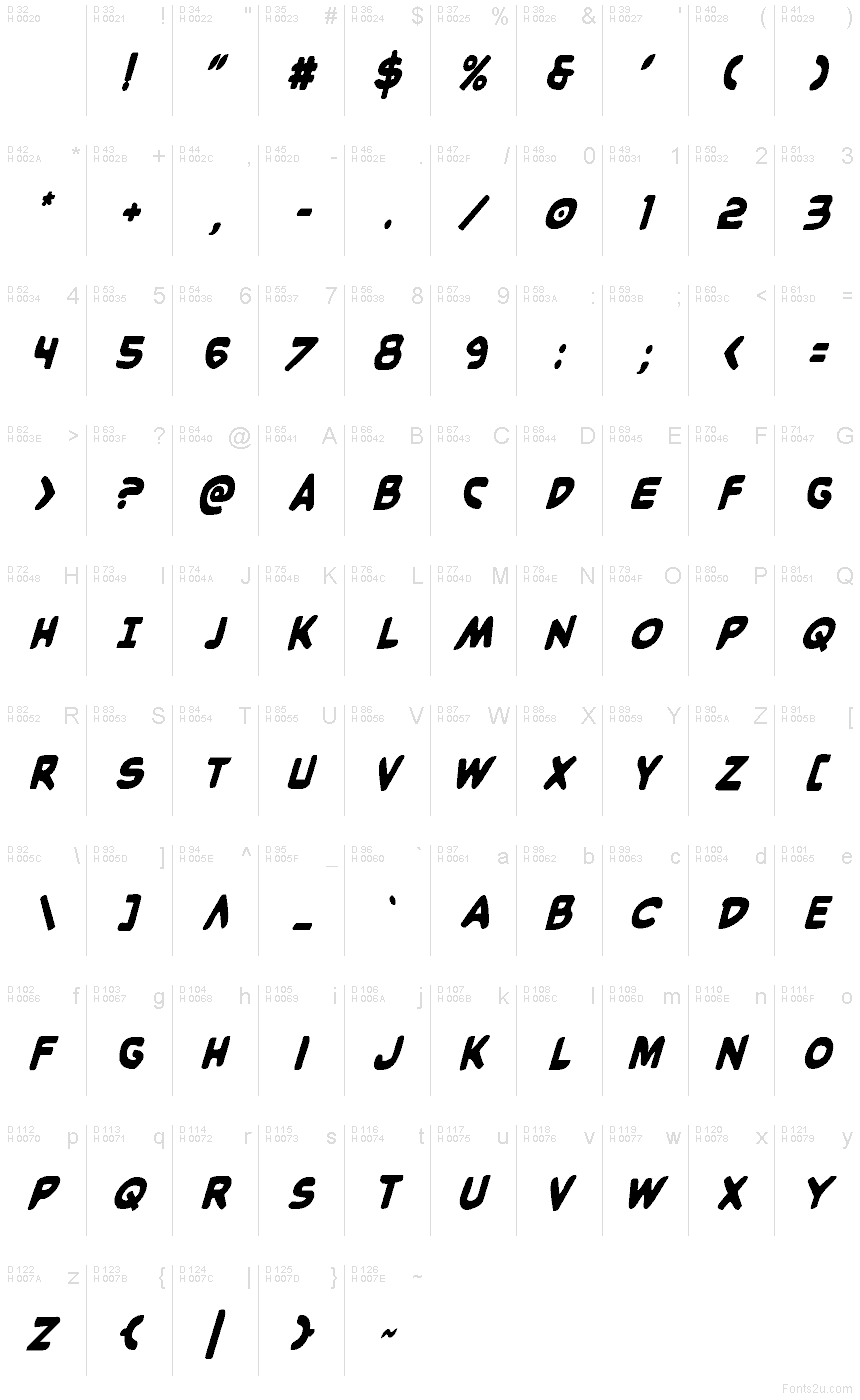
Caped Crusader Condensed Ital
Caped Crusader Condensed Italic font is a free comic display font created and designed by Iconian Fonts. Bold, futuristic, angular, energetic, and with a strong presence; these are all the attributes that make this font the perfect choice for an eye-catching design. It derives its historical references from 1960s classic comic book influences while keeping a modern touch.
Whether you want to use this unique resource for branding superhero-themed projects or within the entertainment industry (TV shows and movie posters), Caped Crusader will surely fit the task. But more importantly, this great typeface can be used whenever you wish to achieve an outstanding typographic visual in posters, headings, labels, digital artwork/illustrations etc.